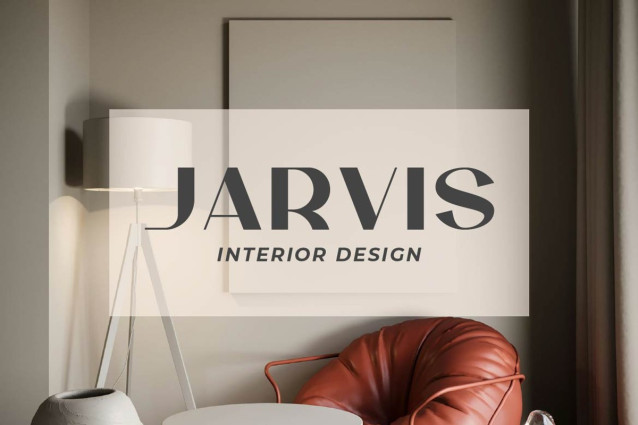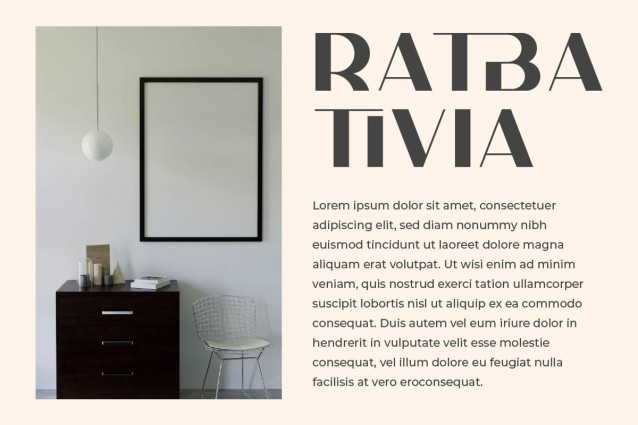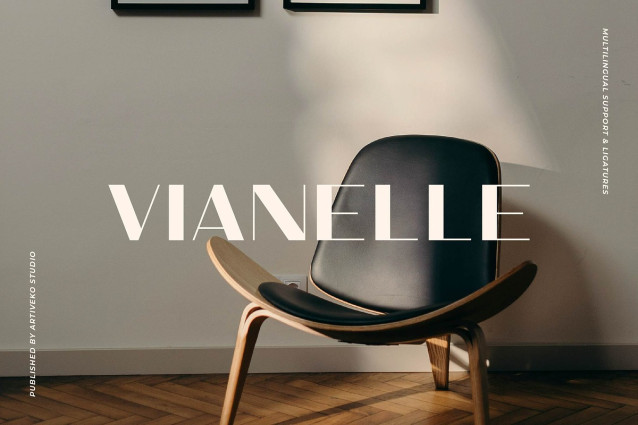
Vianelle Font
Vianelle Font is a clean and refined sans serif font designed for timeless simplicity and versatility. Featuring balanced proportions, smooth curves, and crisp edges, Vianelle is perfect for branding, editorial layouts, websites, packaging, and social media graphics that demand a modern yet understated aesthetic.
This fonts are great for product logo,wedding card logo, clothing brand logo, Vintage design and much more.